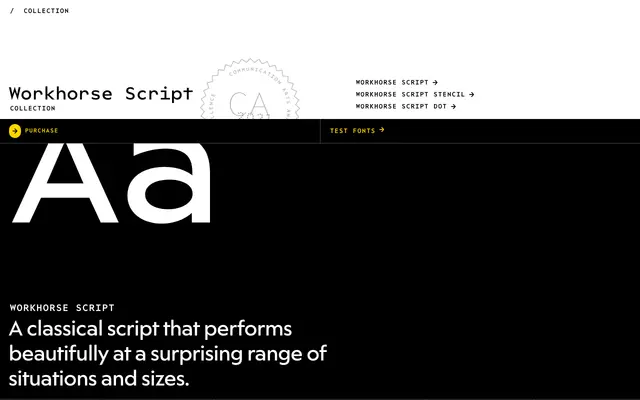
Workhorse Script Collection
A classical script collection released as a variable font across three families and six optical sizes, with stencil and dot-matrix decorative variants.
The collection spans a classical connected script, a stencilled variant combining elegance with roughness, and a dot-matrix showhorse variant. Both the base Workhorse Script and the Stencil cut offer six optical sizes from Extra Fine to Micro, making them unusually versatile for scripts. The Dot variant ships as a single style intended purely for display use.
Described explicitly as a classical script, with stencil and dot-matrix decorative variants; the base family is a traditional connected script designed across multiple optical sizes.